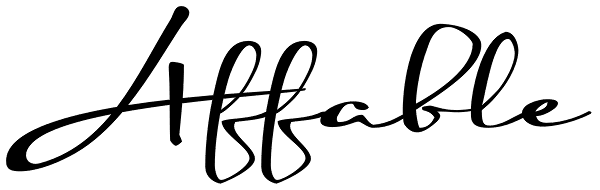
Affable
An elegant, contemporary and quirky handwriting font inspired by fonts such as Satisfaction and Nothing. There are many handwriting fonts out there, almost all of them tending to highlight the individuality of a particular person's handwriting. I...
Affable
Affable Black
Affable Lite